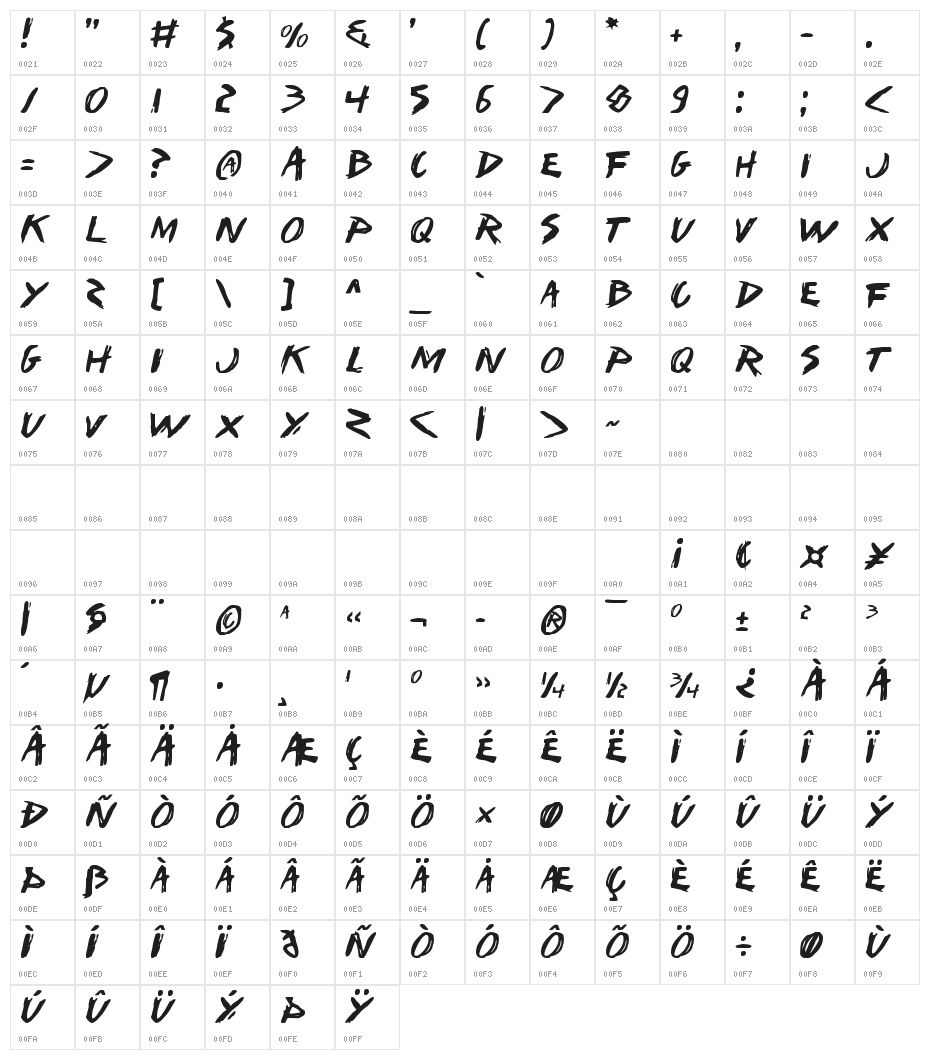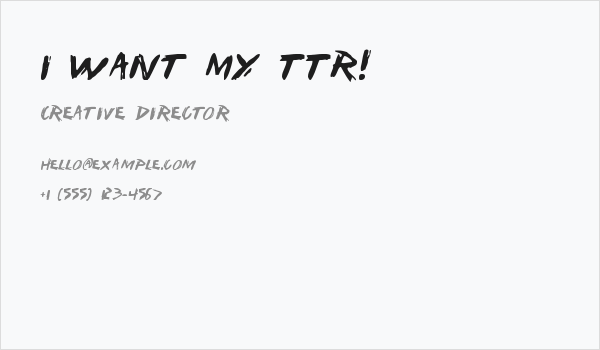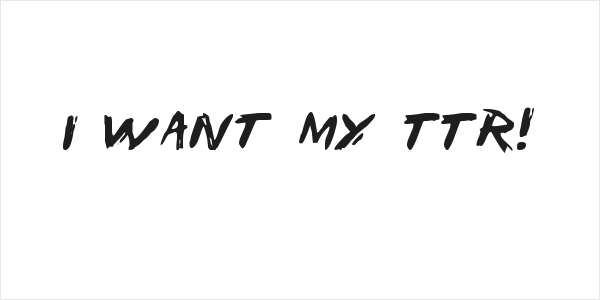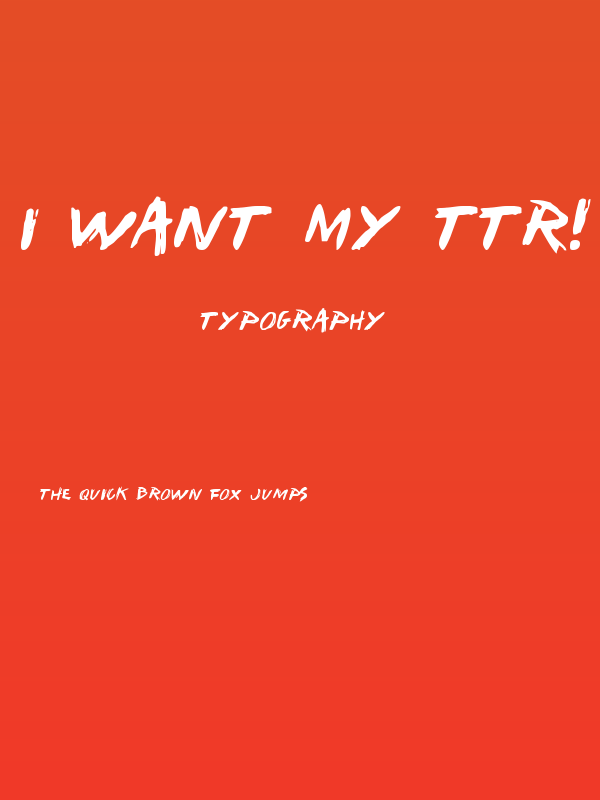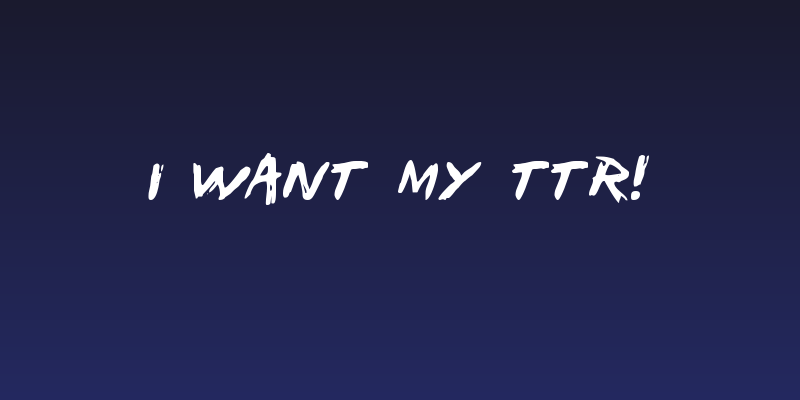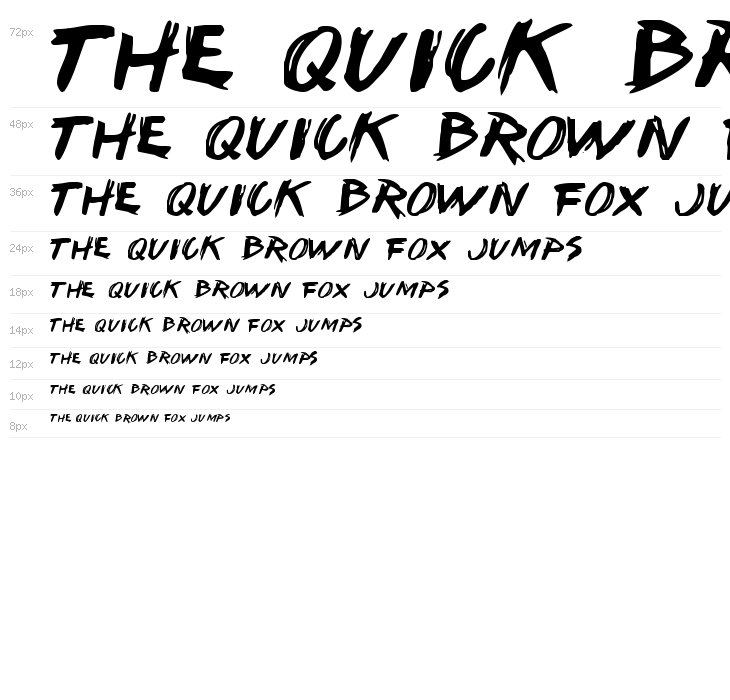
I Want My TTR! Font
I Want My TTR! Description
This font exhibits a bold, expressive style with a hand-painted appearance. The strokes are dynamic and irregular, giving it an energetic and artistic feel. The uppercase and lowercase letters maintain a consistent flow, while the numbers and special characters complement the overall aesthetic. The brush-like texture adds a sense of movement and spontaneity, making it ideal for creative and informal designs. Its unique character is suitable for projects that require a personal touch or a bold statement.
| Overall Style | Artistic, Expressive |
| Proposed Projects | Ideal for posters, album covers, branding, and creative projects that require a bold, artistic touch. |